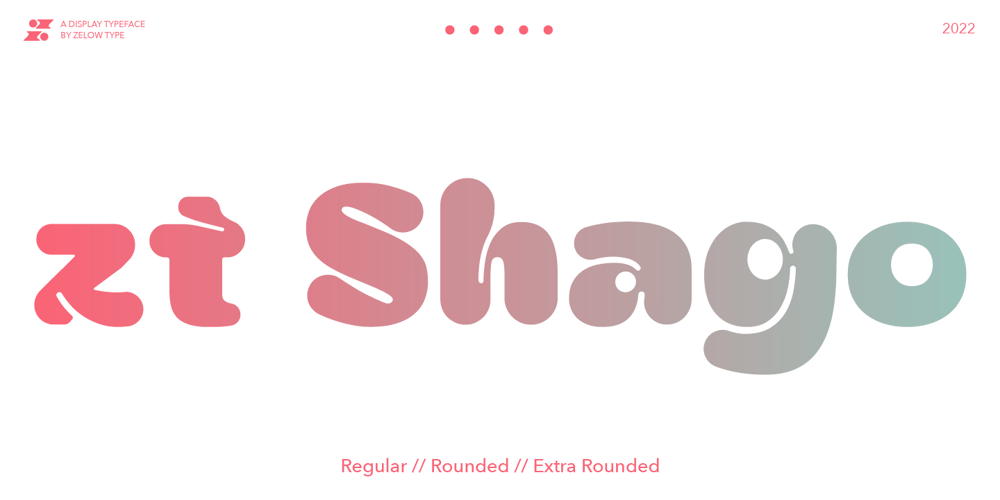
Zt Shago Font Family was designed by Khair Unnas and published by Khaiuns. Zt Shago contains 18 styles and family package options. Zt Shago is a font family of 3 eye-catching display forms, each style has its own character, from very strong and soft angles. When you’re looking for a font with a fun message, you can find it in the zt Shago family.Zt Shago is the most extensive font family I’ve ever created, with 33 styles and 16 free font styles. The default and round styles come in regular & Italic. But for the free one I only have one on myfont, for other styles you can download at Gumroad.While extra rounded only has one weight, namely extra bold. Zt Shago also has several unique alternatives to the letters a, h, k, m, n, v, w, & z, thus enhancing your design style.I hope you have fun using zt shagoThanks for using this font ~ Khaiuns X zelowtype